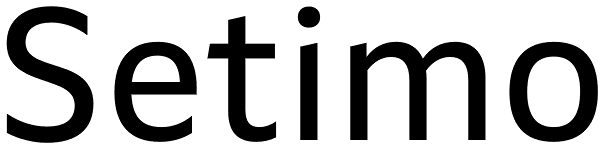
Setimo
A strong personality does not have to be loud. Setimo's strength lies in its distinguished and authoritative tone. It is akin to a tailor-made suit, rich with attention to detail, perfectly fitting, and exuding confidence for any occasion. Setimo...